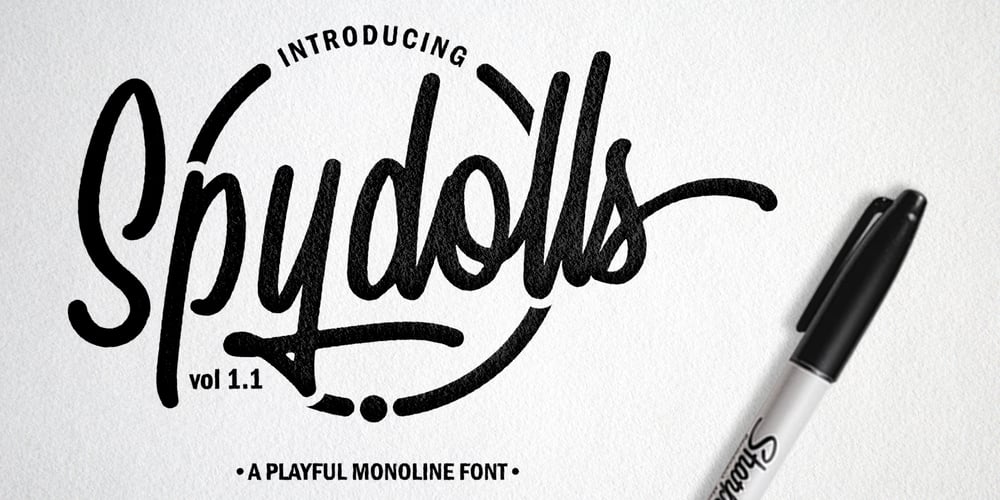
Spydolls Font Family was designed by Mokhamad Junaedi and published by SemutHitam. Spydolls contains 1 styles and family package options. Introducing Spydolls a playful monoline script font inspired by the handwriting of marker pen, highly recommended for your design projects. You can use it for: logo design, t-shirt, branding, prints, and much more. A total of 600 glyph with a great selection of each glyph multilingual language support comes with a standard european made you not difficult to use.We hope to always keep making products more attractive. Don’t hesitate to ask us if there are things you want to tell them:)Thanks and havefun with Spydolls